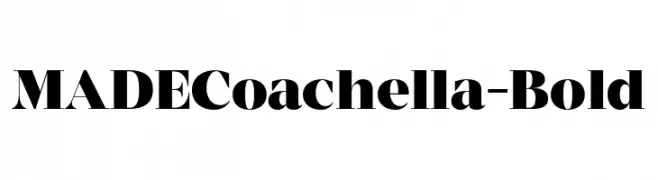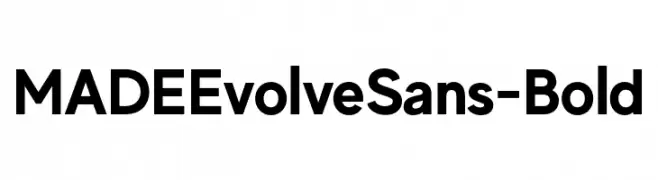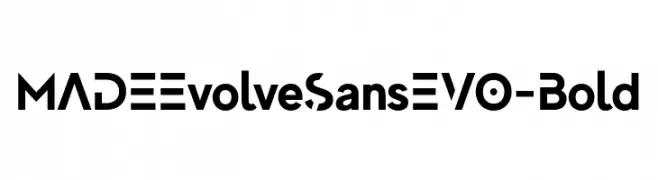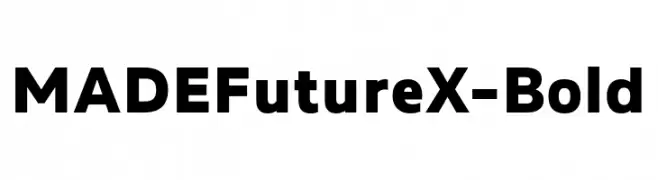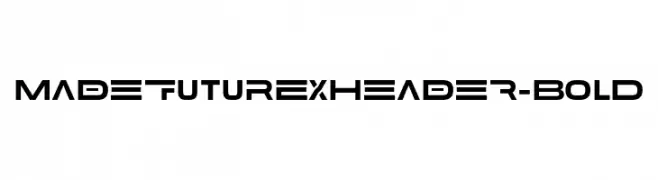
A bold, modern typeface with clean lines and geometric shapes.
A bold, high-contrast serif font with strong vertical emphasis and sharp serifs.
A bold, modern sans-serif font with clean lines and uniform strokes.
A bold, geometric sans-serif font with a modern and clean aesthetic.
A futuristic, bold font with geometric elements and sharp angles.
A sleek, futuristic font with rounded edges and a geometric structure.
A bold, classic serif font with strong strokes and elegant design.
A bold, geometric font inspired by ancient runic alphabets with a modern twist.
A bold, modern sans-serif font with geometric letterforms.